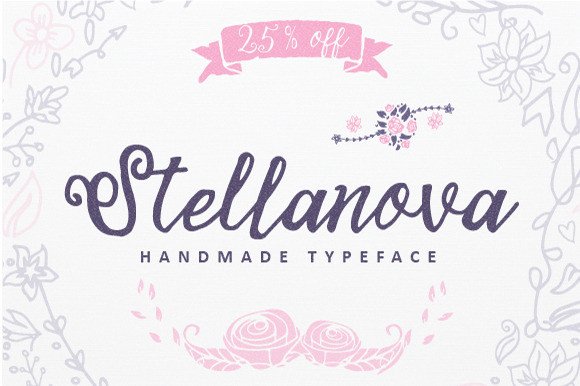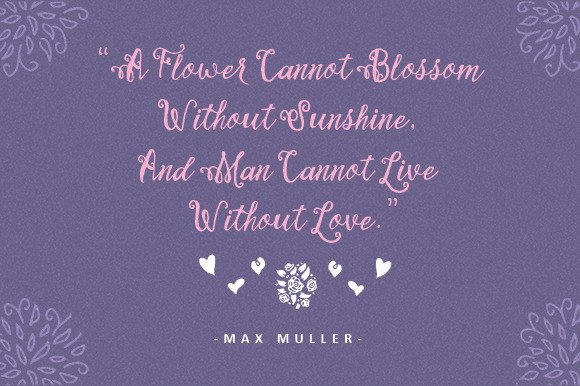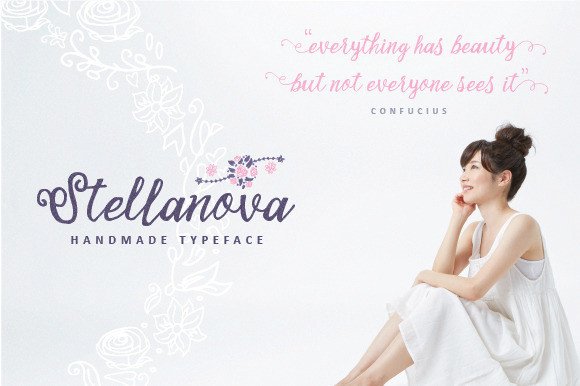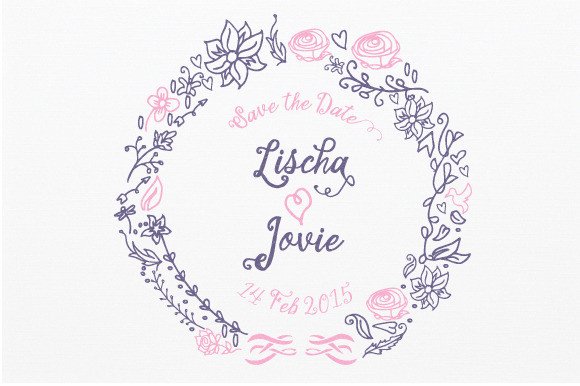
Stellanova Font
About Stellanova Font
Stellanova is a handwritten script that looks adorable in a wide range of designs and projects.  This font is eclectic yet soft and subtle, and has an enormously quirky charm.